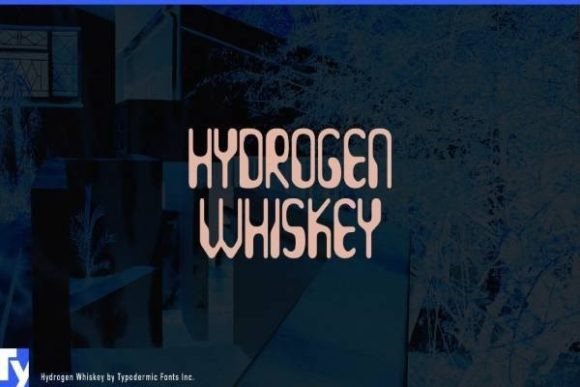
Hydrogen Whiskey, Handwritten Grunge Serif Font
Hydrogen Whiskey is a decorative display font designed with a capsule‑shaped, techno‑retro aesthetic that blends vintage charm with futuristic edge. Its geometric letterforms and narrow proportions give it a distinctive sci‑fi or industrial feel — excellent for headlines, branding, logos, posters, packaging, and other creative projects seeking a bold, stylized vibe.
- Sci‑fi or retro‑tech posters, flyers, and event graphics
- Merchandise designs — T‑shirts, mugs, tote bags, stickers with a futuristic or retro aesthetic
- Branding materials — logos, product labels, package designs, signage for shops or creative businesses
- Stickers, decals, and vinyl‑cut art using cutting machines or sublimation workflows
- Digital graphics, social‑media visuals, web headers, or marketing assets with bold display typography
| Feature | Hydrogen Whiskey | Generic Clean Display Font A | Generic Retro Sans Font B |
| Style / Vibe | Capsule‑shaped, retro‑tech, sci‑fi / industrial display | Modern, minimalist sans‑serif display | Retro‑style sans, soft vintage feel |
| Best Use Case | Bold logos, packaging, retro‑tech posters, merch, signage | Clean modern branding, minimal labels, UI/print text | Vintage posters, lifestyle branding, softer decorative text |